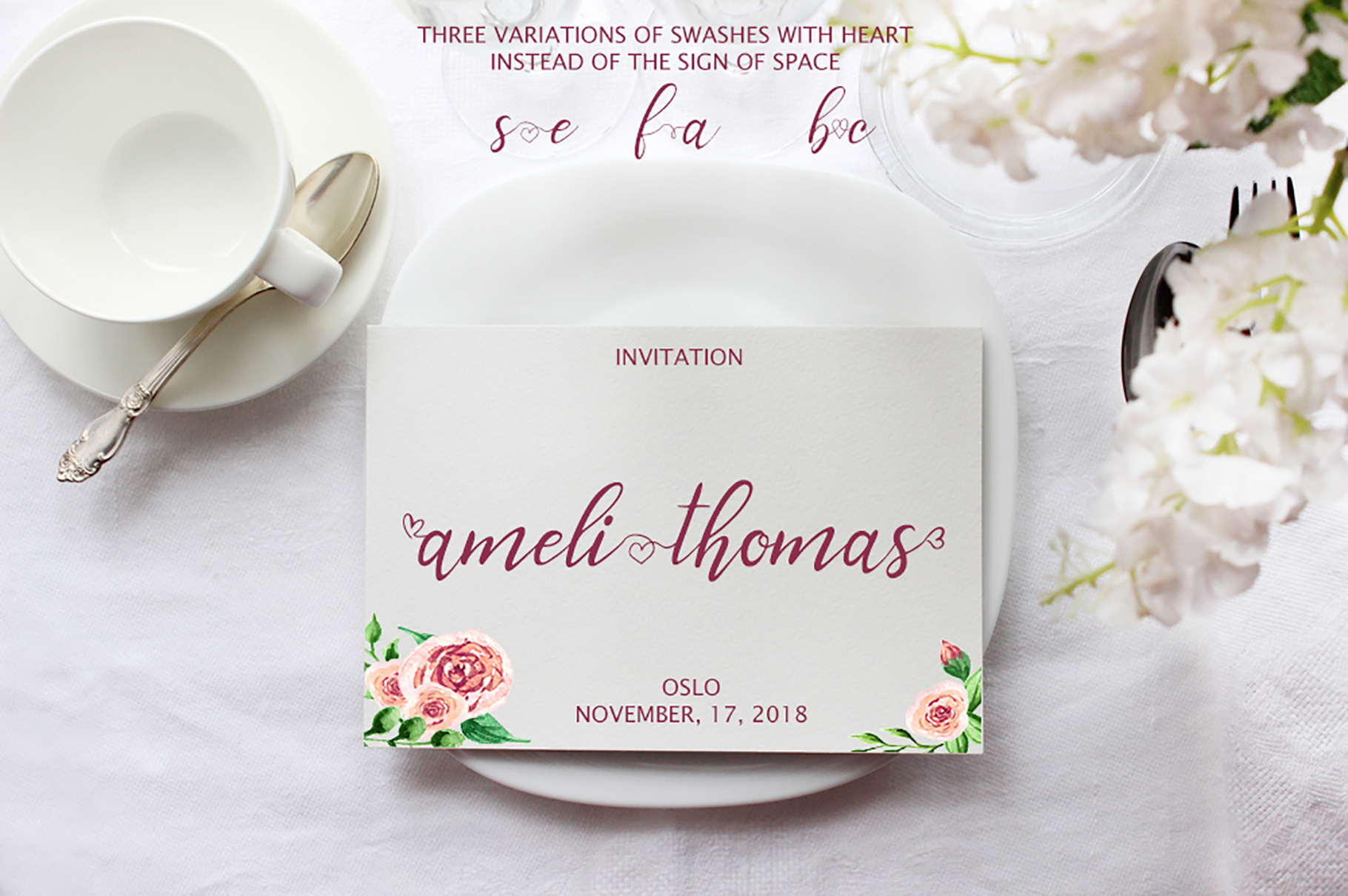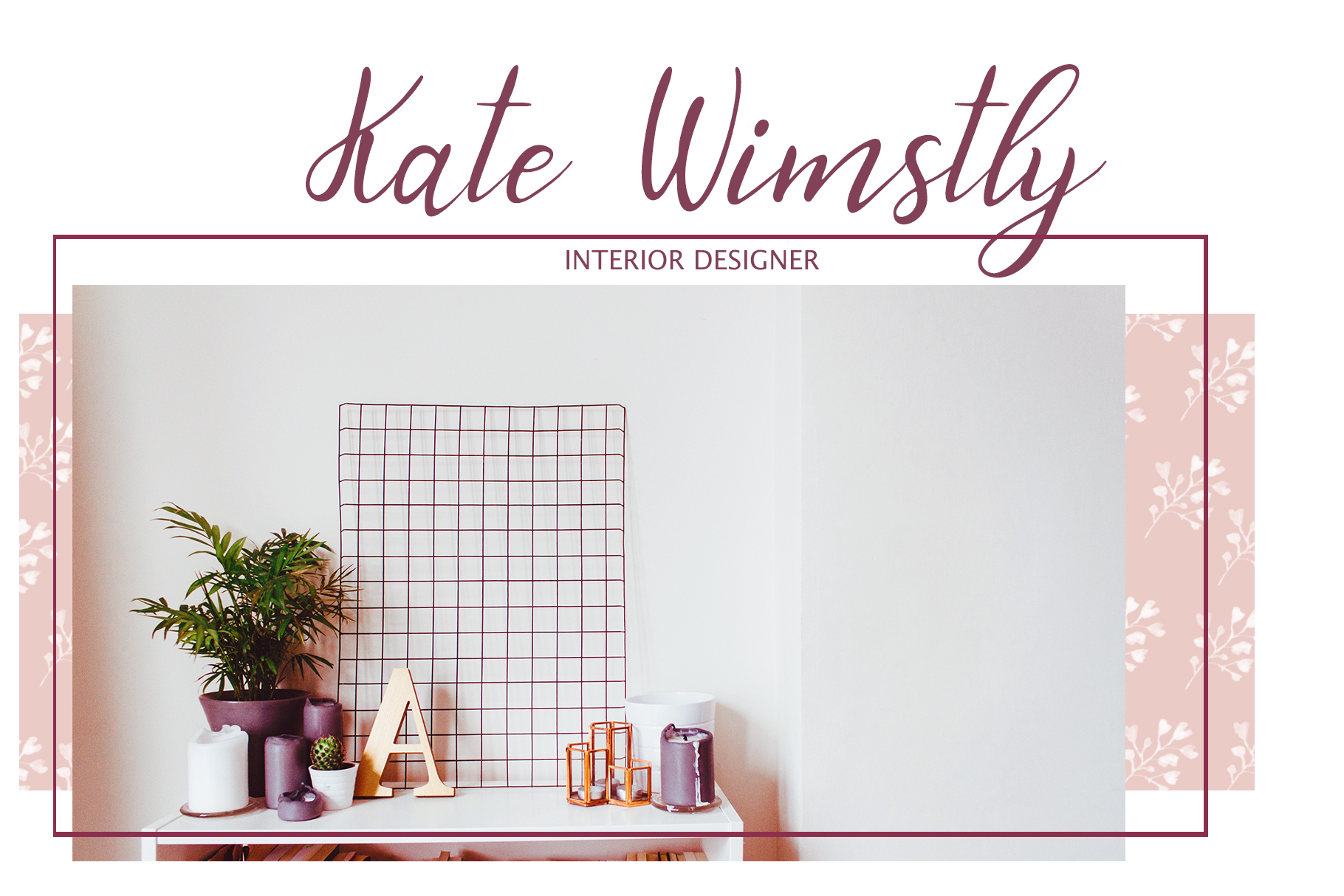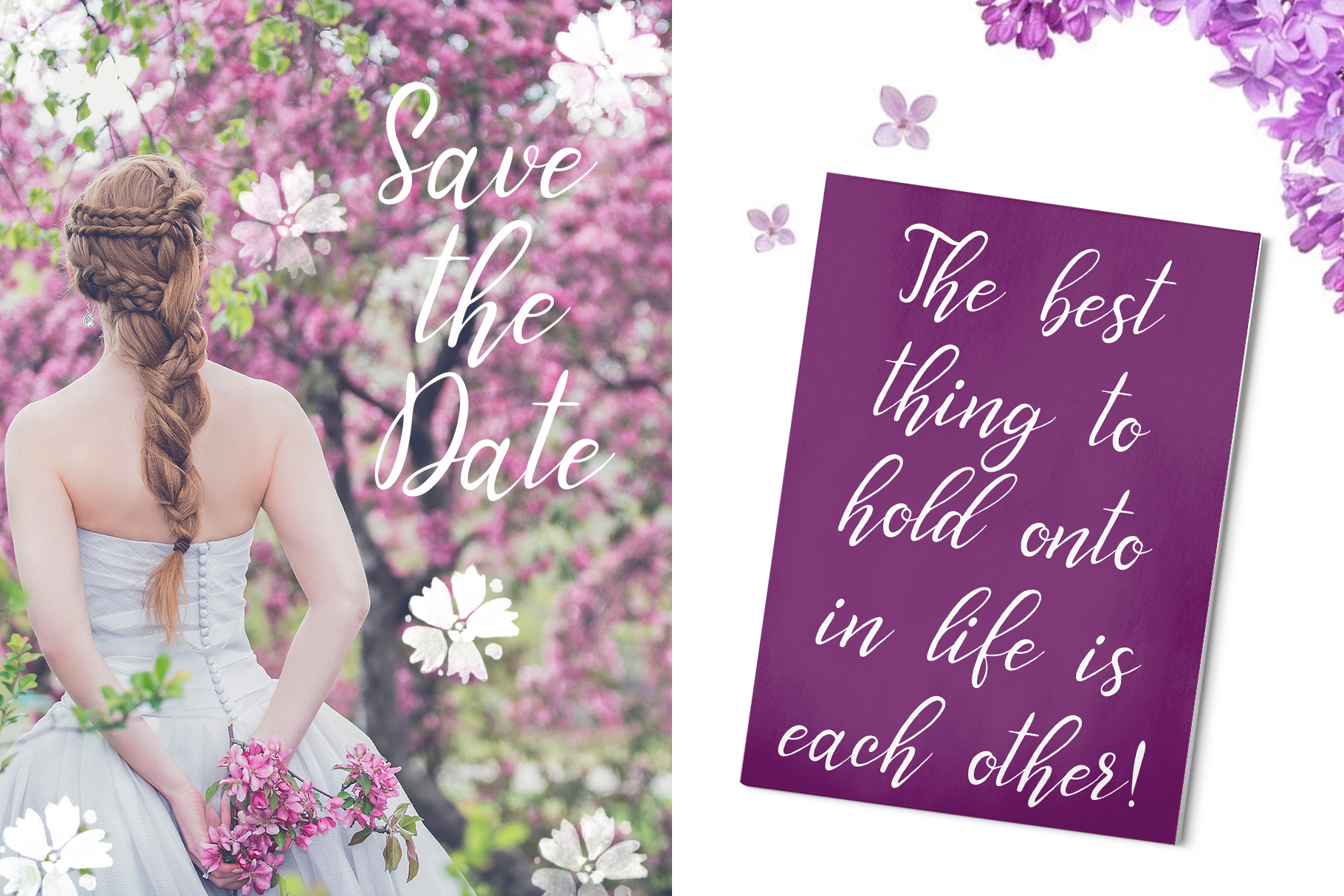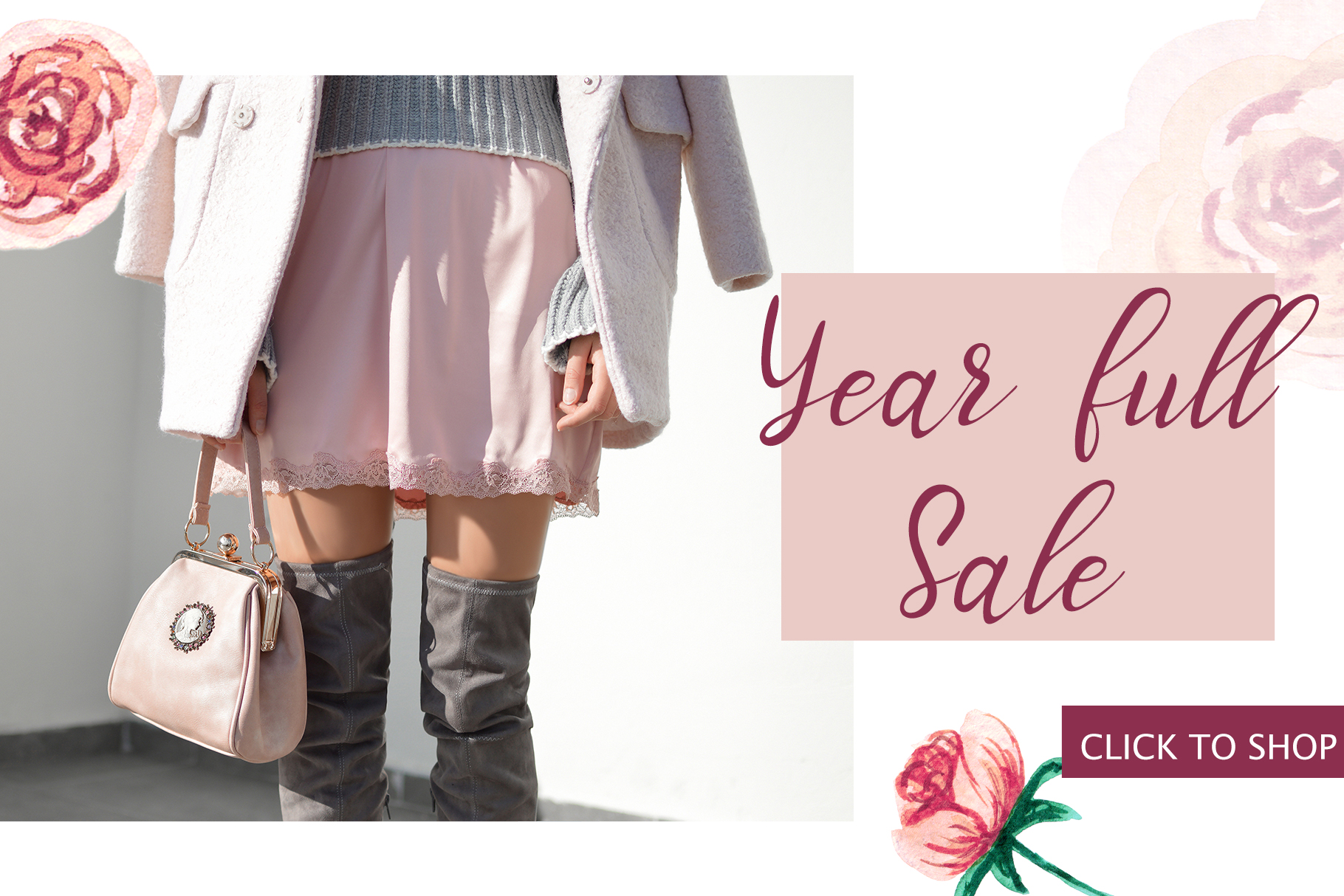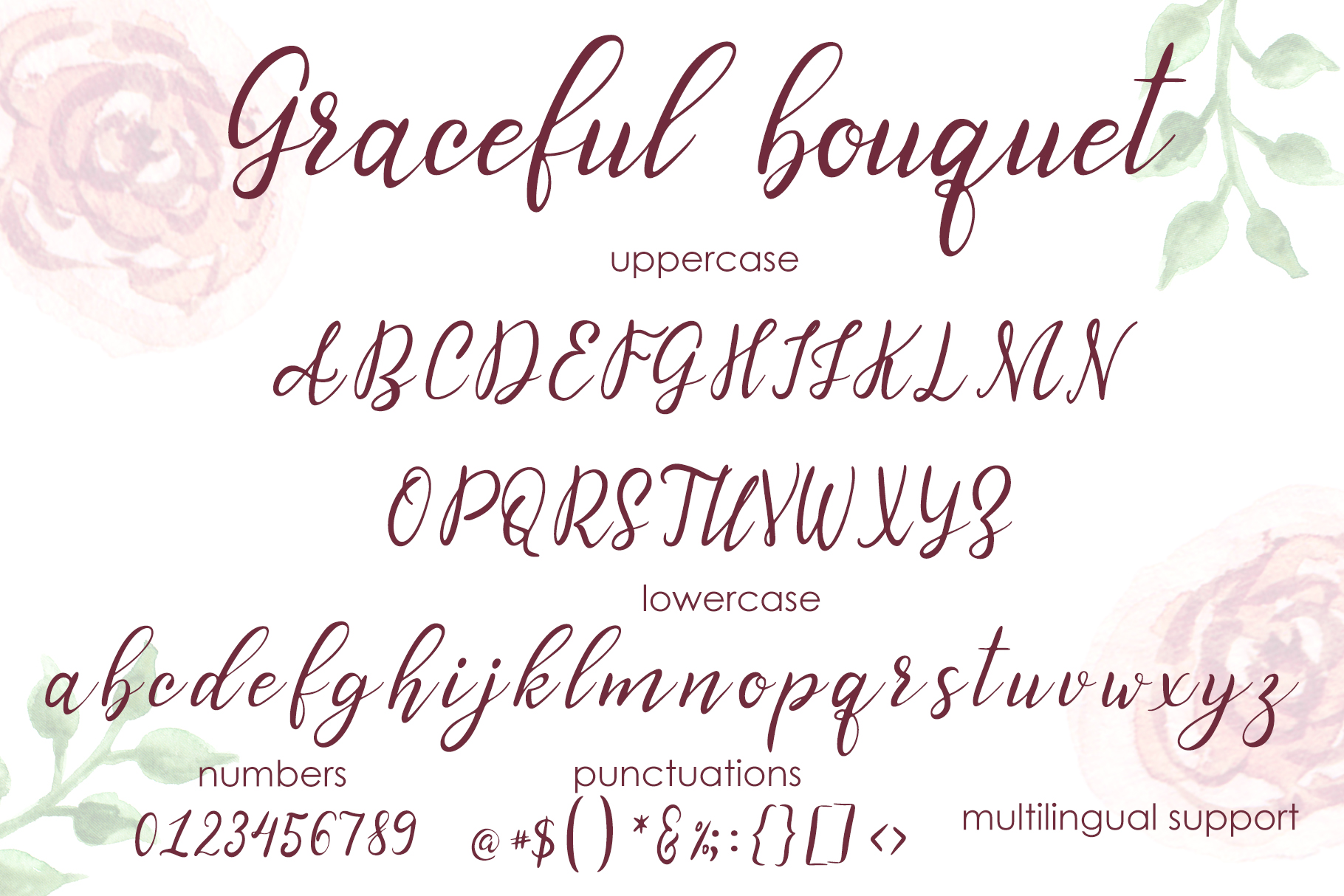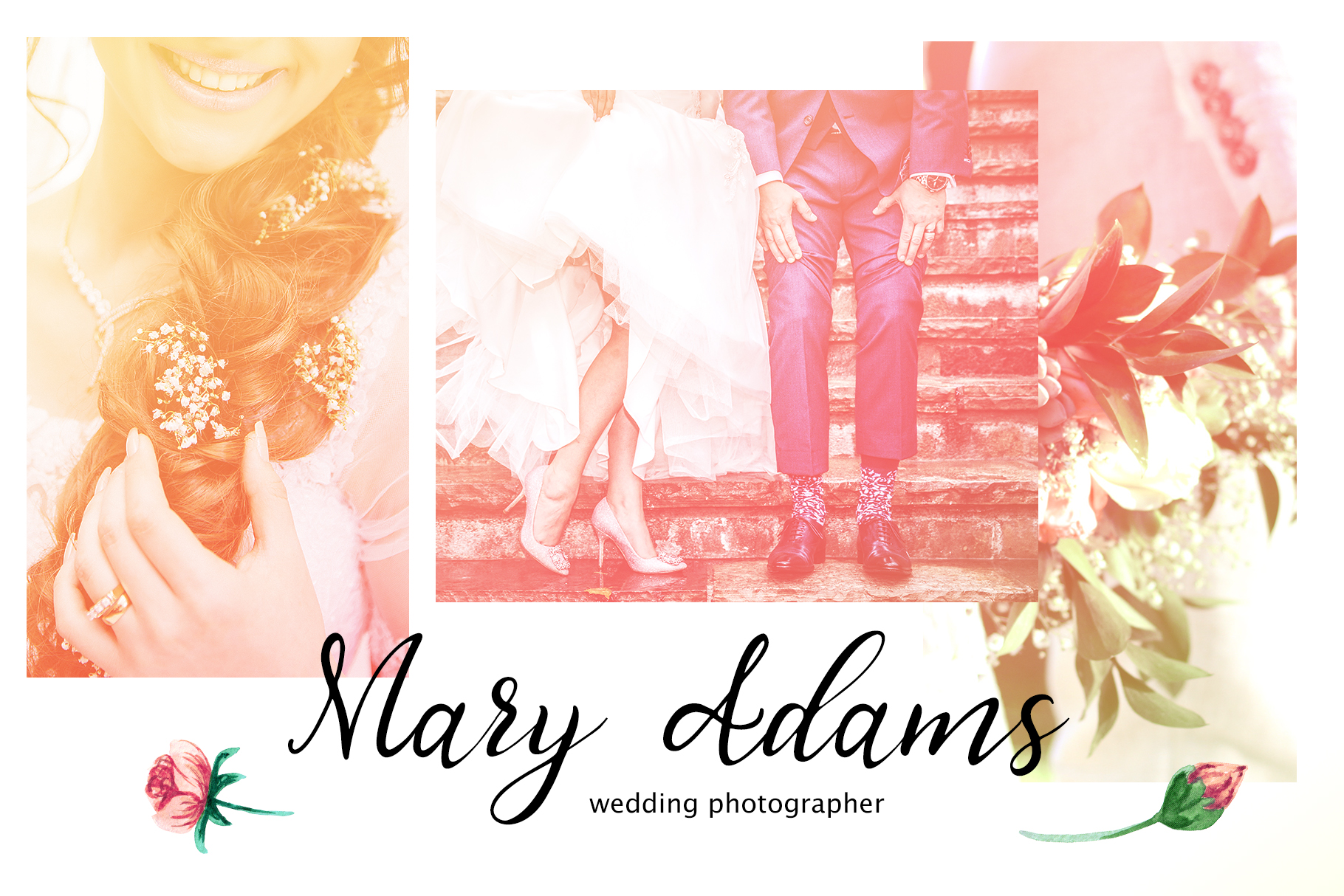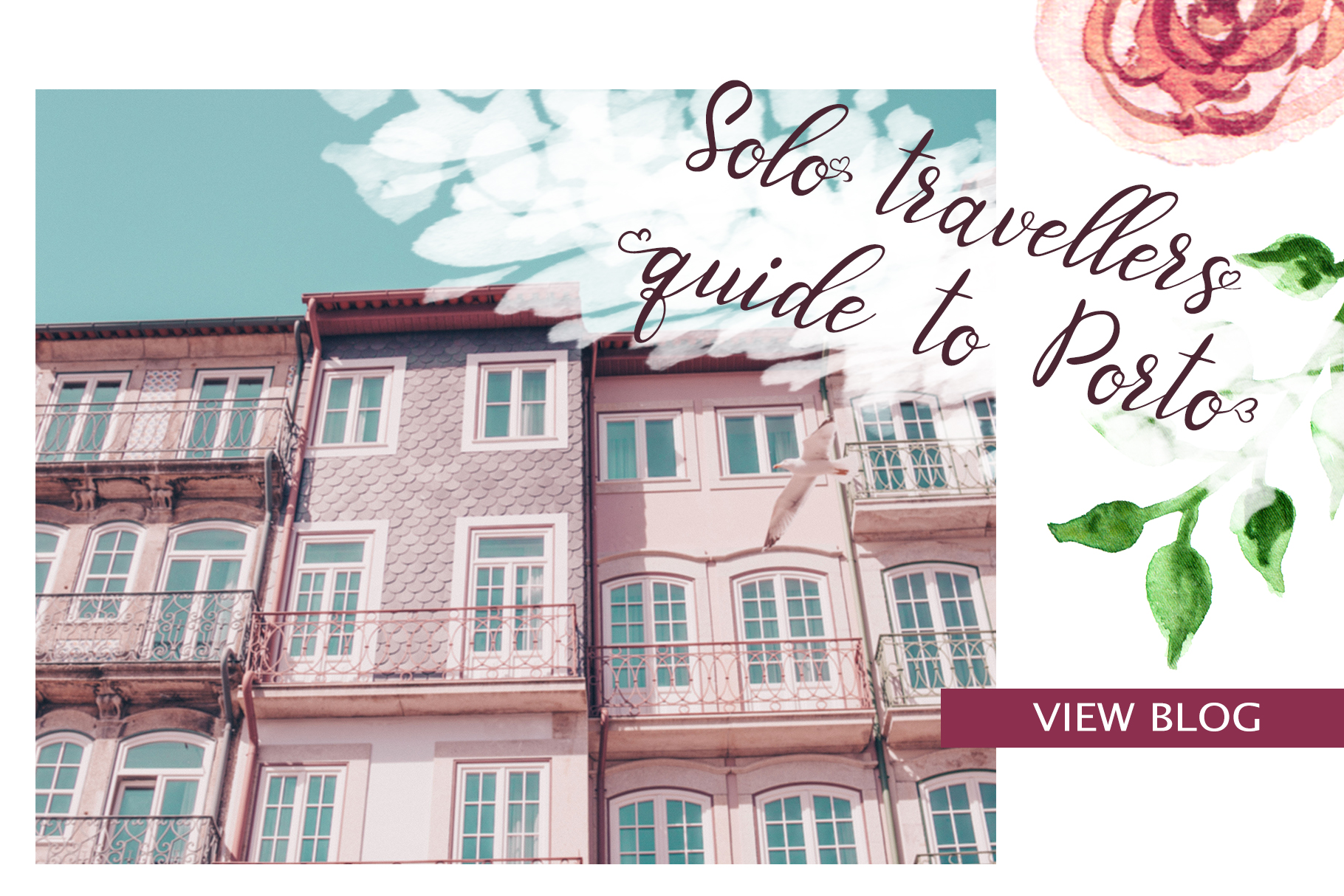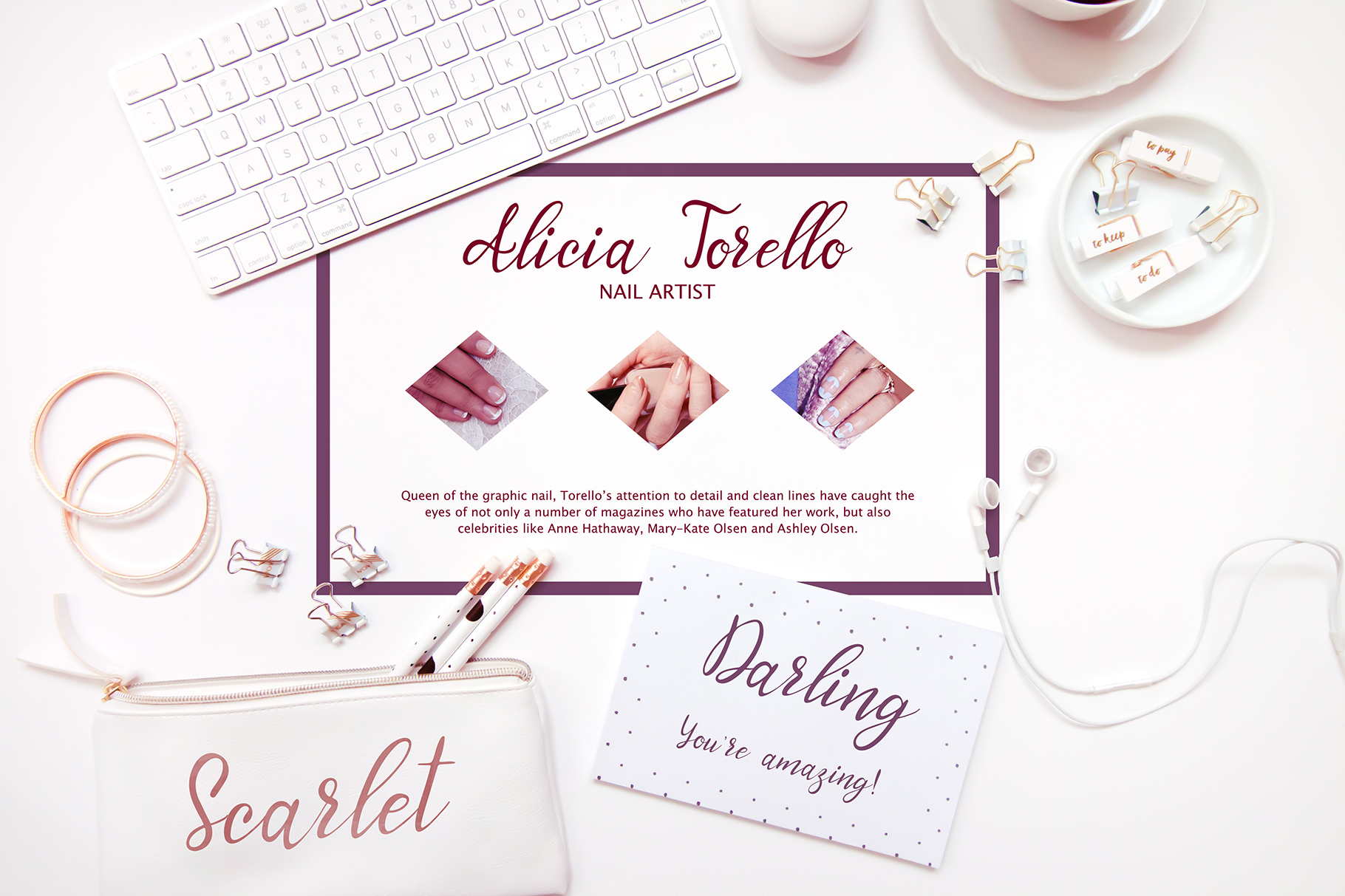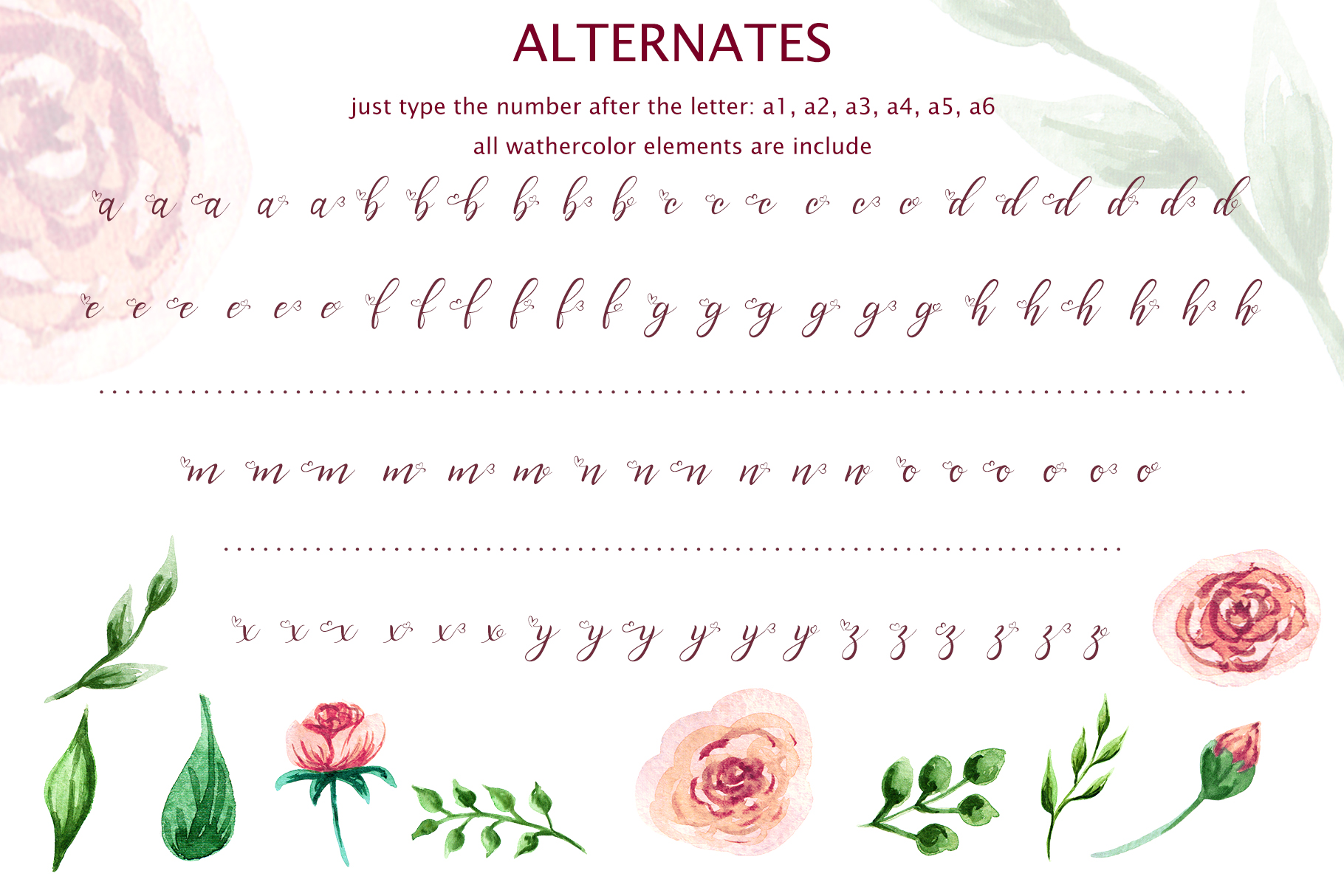
Graceful Bouquet Font
About Graceful Bouquet Font
Graceful Bouquet is a stunning script that can be easily used for a ton of designs with its complete set of letters, characters and stylistic alternates. This is a romantic and feminine script, making it ideal for display uses.